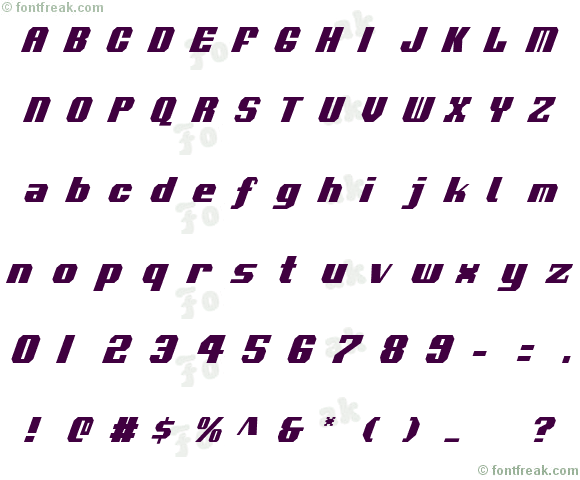
About Voortrekker
The Voortrekker font, designed by Iconian Fonts, is a striking display typeface that stands out with its condensed italic style. Released in 2009, this freeware font features bold, geometric shapes that lend a modern yet robust appearance to any design project. The stroke weight is consistent throughout, creating a solid and impactful visual presence, while the slight slant adds a dynamic quality that enhances readability and engagement.
Visually, Voortrekker showcases minimal contrast, maintaining a uniform thickness that contributes to its strong, assertive look. The letter spacing is tight, which not only emphasizes the condensed nature of the font but also allows for a cohesive layout in various applications. The design incorporates simple yet effective decorative elements, such as sharp angles and clean lines, making it versatile for a wide range of creative uses.
This font is particularly well-suited for graphic designers looking to create attention-grabbing movie posters, bold advertising campaigns, or eye-catching signage. Its unique style also makes it an excellent choice for restaurant menus that aim to convey a contemporary vibe or for branding materials that require a strong visual identity. Small business owners and content creators can leverage the Voortrekker font to craft memorable logos, business cards, and promotional materials that resonate with their audience.
What sets the Voortrekker font apart is its ability to blend modern aesthetics with a sense of strength and stability. This makes it a compelling choice for anyone seeking a font that is both distinctive and versatile. For those interested in exploring this unique typeface, the Voortrekker font free download is an excellent opportunity to enhance your design projects with a bold and modern touch.